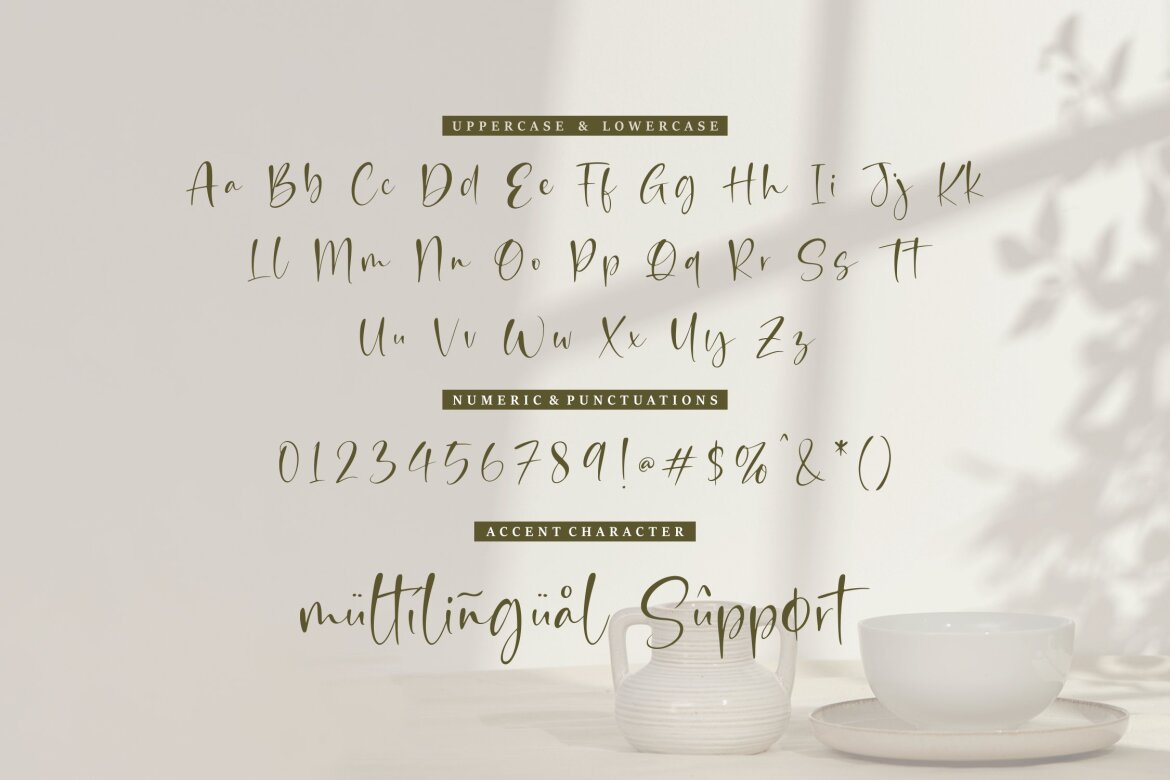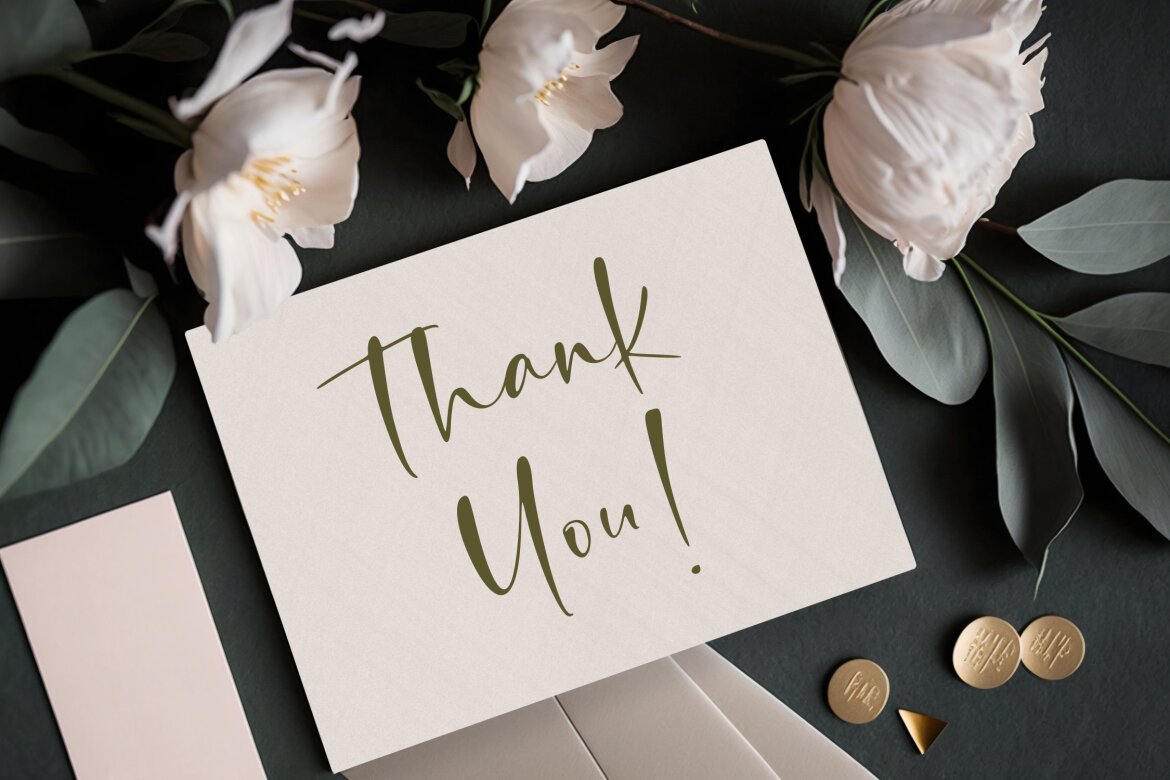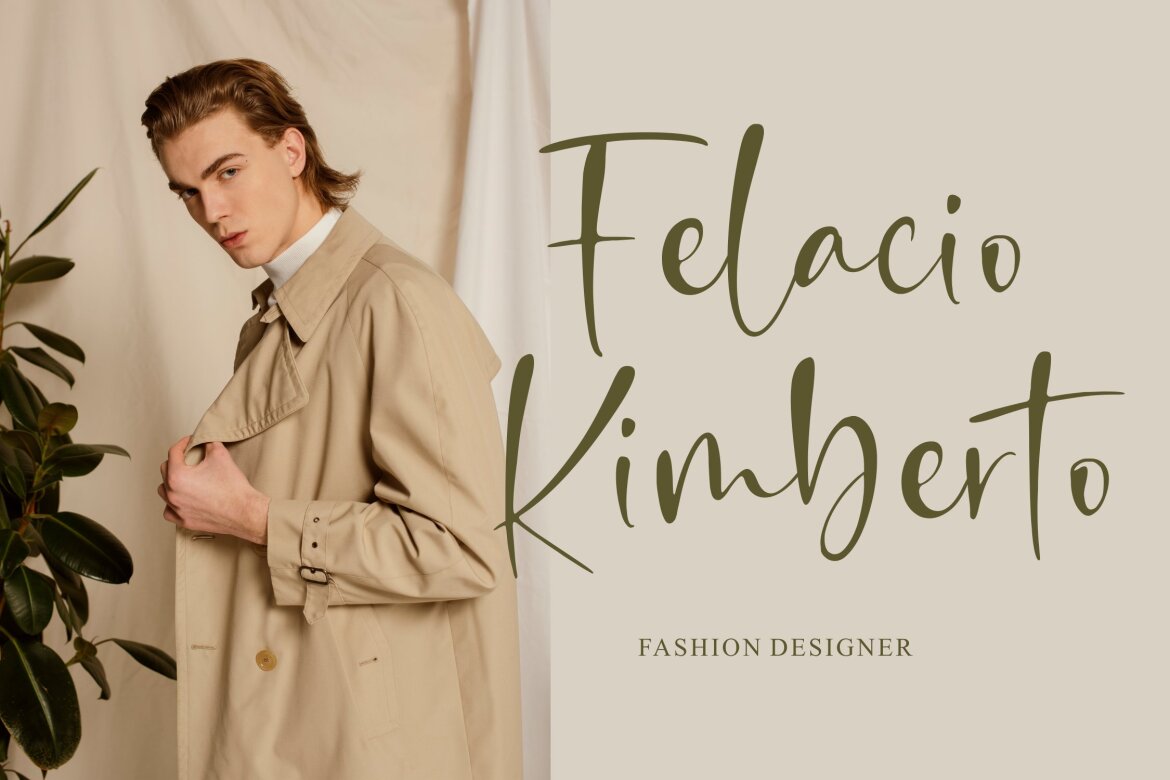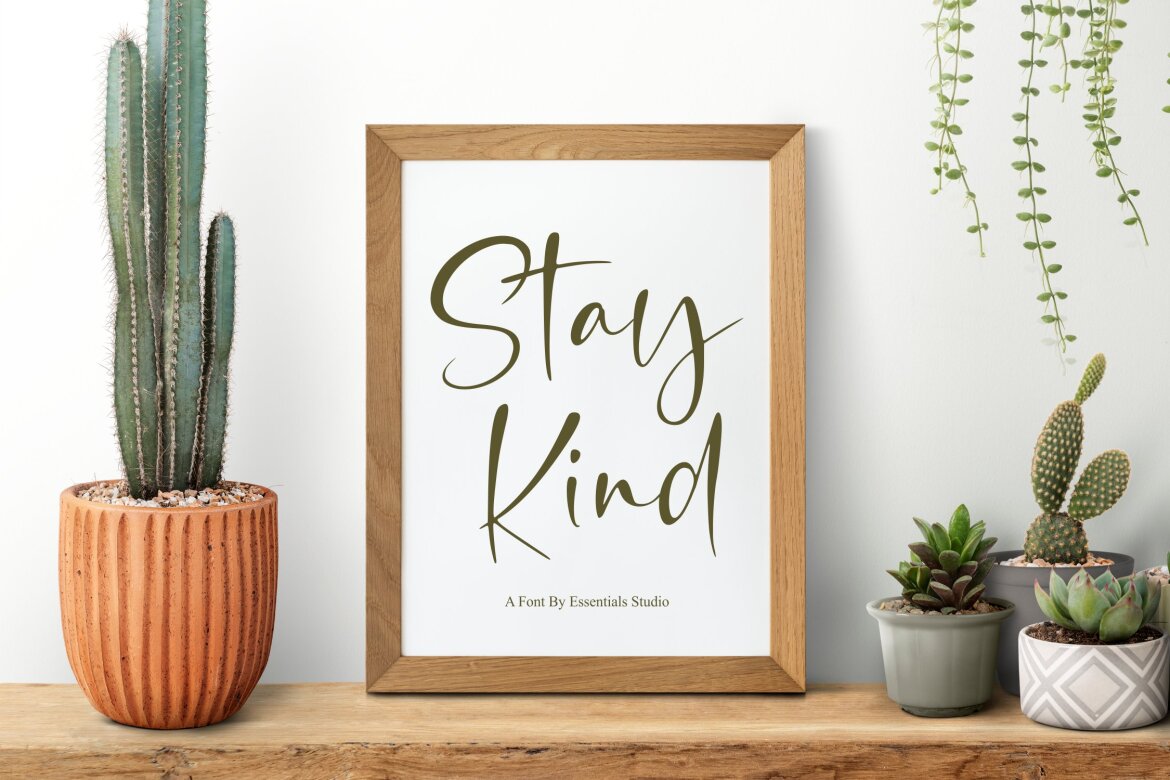
Romantic Jasmine FREE Font
Romantic Jasmine
Romantic Jasmine is a dazzling handwritten font that exudes charm and elegance. With its fluid strokes and intricate details, it adds a touch of sophistication to any project. Whether used for invitations, branding, or social media graphics, this font captivates with its unique personality and effortless beauty.